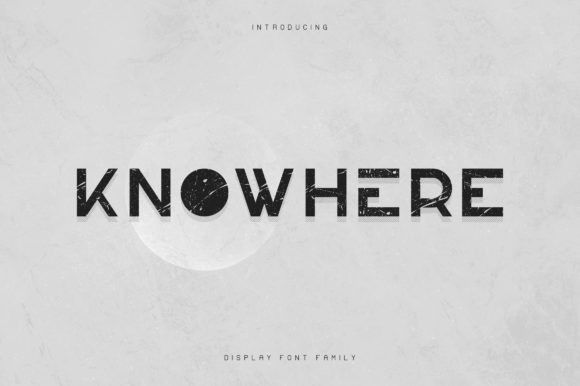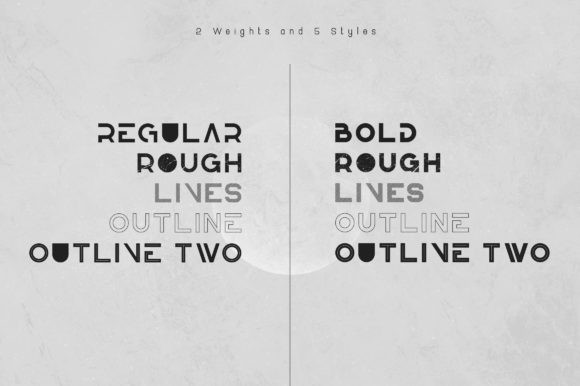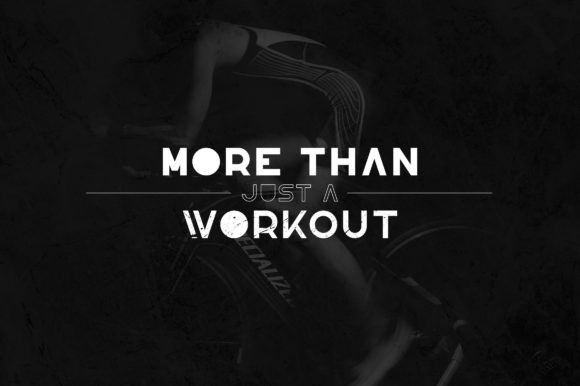
Knowhere Font
Knowhere is a modern and strong display font. It is perfect for magazines, flyers, posters, social media posts and anything that requires a distinguish style!